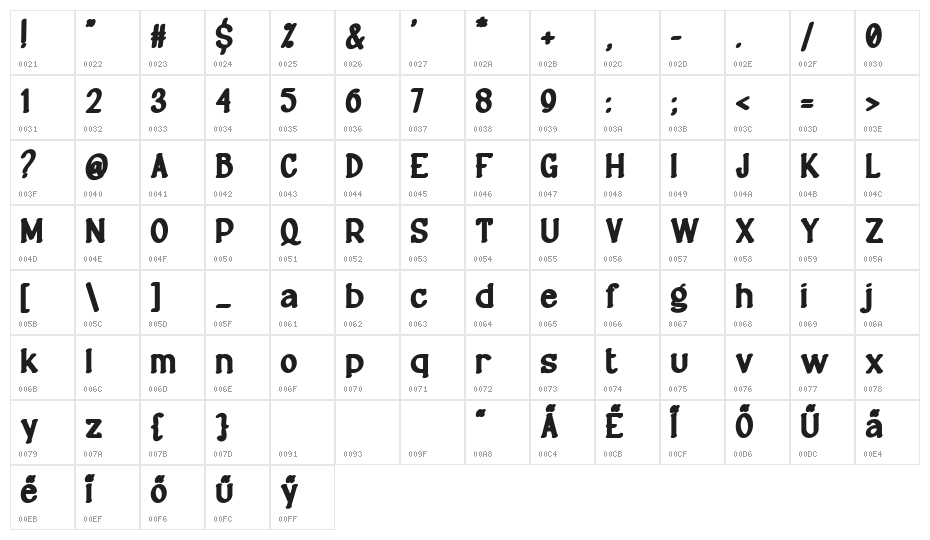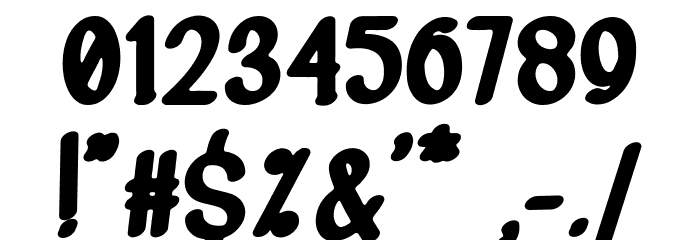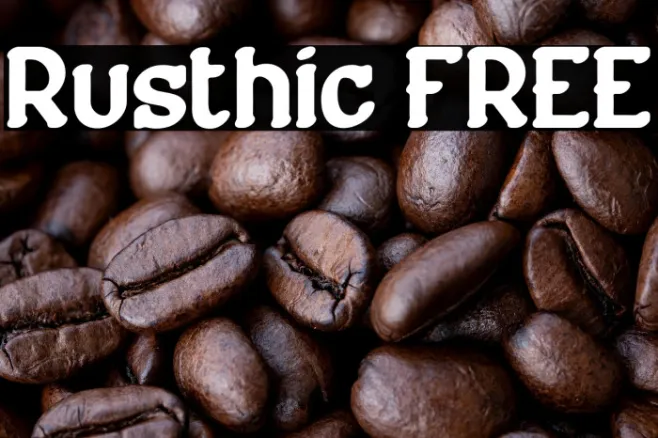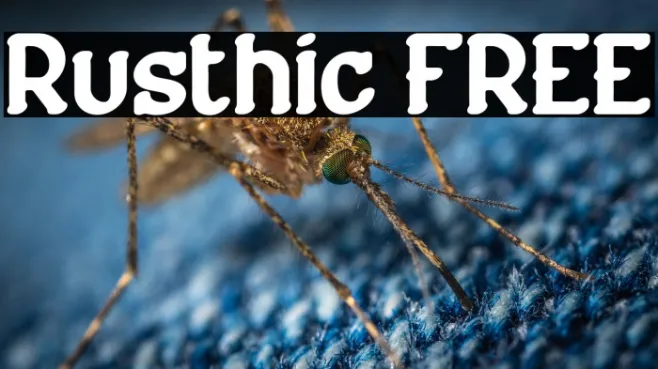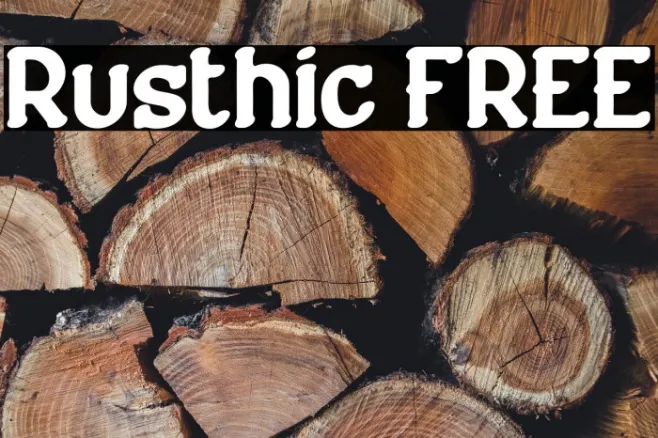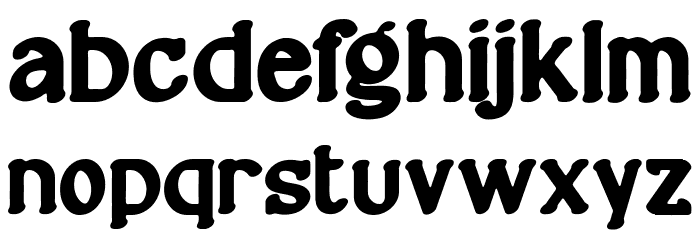
Rusthic FREE Font
Rusthic FREE Description
This font features a bold and playful design with rounded edges and a slightly irregular form, giving it a handcrafted and rustic appearance. The uppercase and lowercase letters maintain a consistent thickness, contributing to its bold presence. The numbers and special characters are designed to match the overall style, with a quirky yet legible form. The font's unique character is enhanced by its slightly uneven baseline, adding to its charm and making it suitable for creative and informal projects.